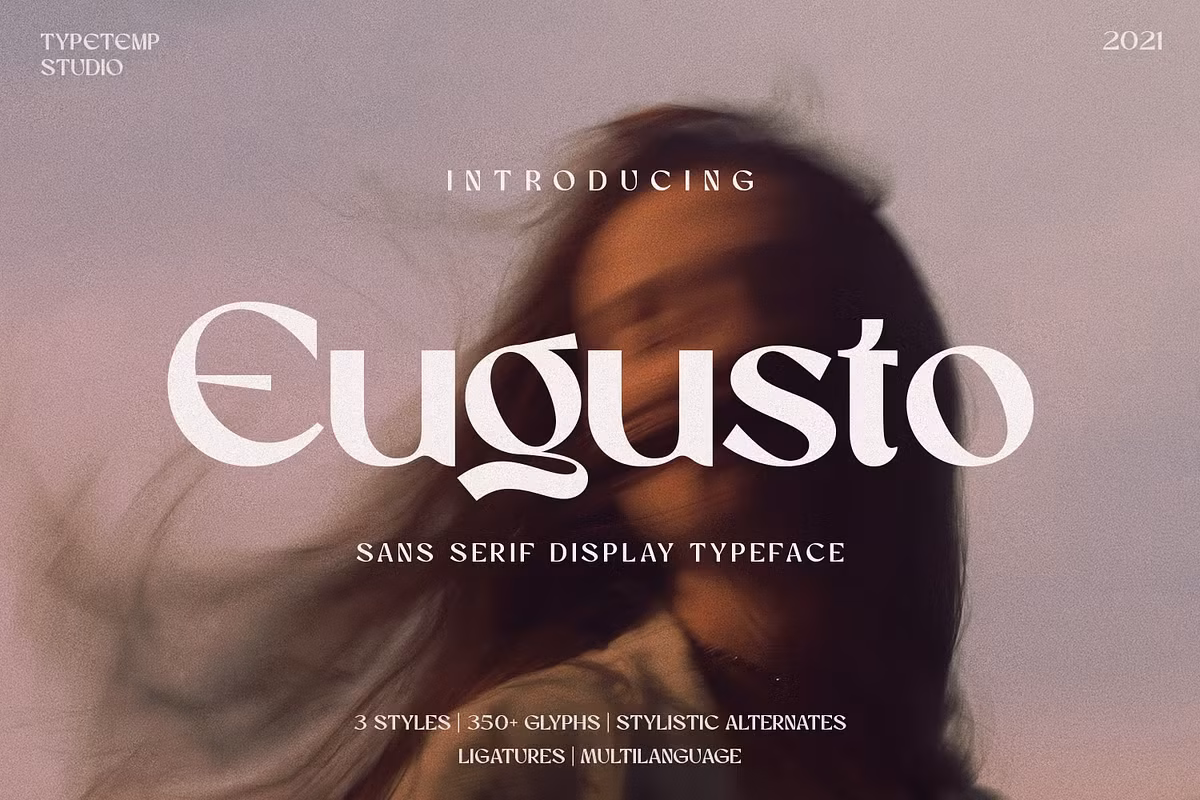
Eugusto Display Typeface Free Download is a bold and modern typeface designed to make a statement. Featuring strong, geometric shapes and an eye-catching structure, this font is perfect for creating impactful logos, headlines, posters, and branding materials. Its distinctive letterforms add character to any design, making it ideal for creative campaigns and projects that require a bold visual presence. Whether you're working on a fashion brand, a modern event, or a dynamic marketing piece, Eugusto Display Typeface Free Download lets you experiment with its striking design in personal projects before purchasing a commercial license. Add personality and strength to your designs with this beautifully crafted display typeface.